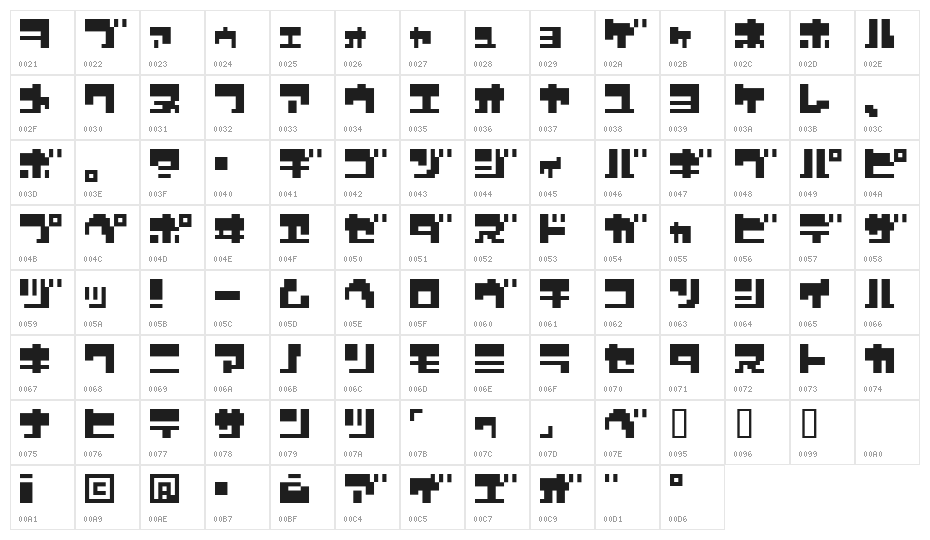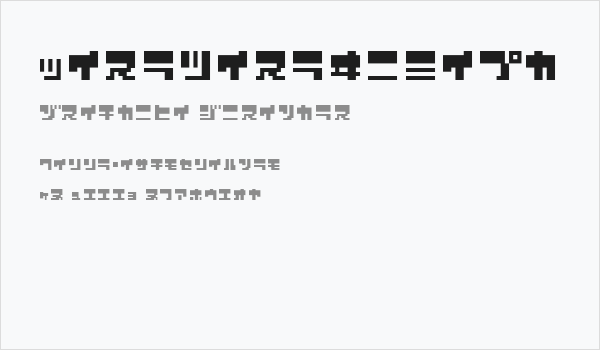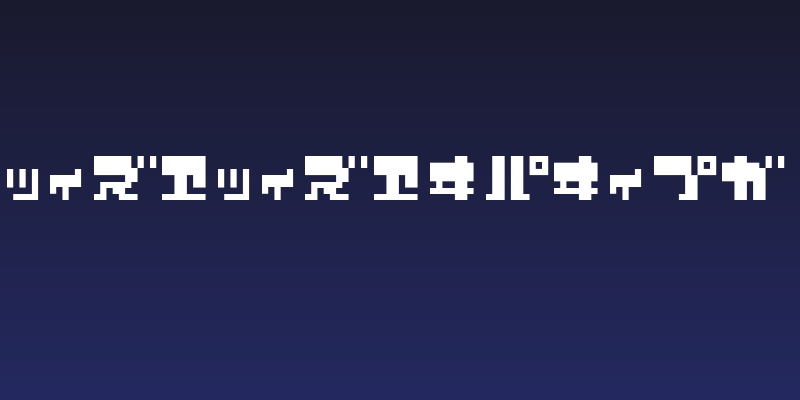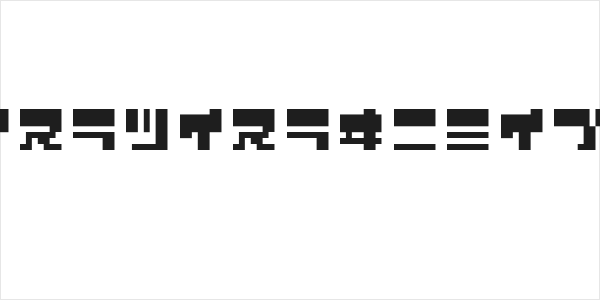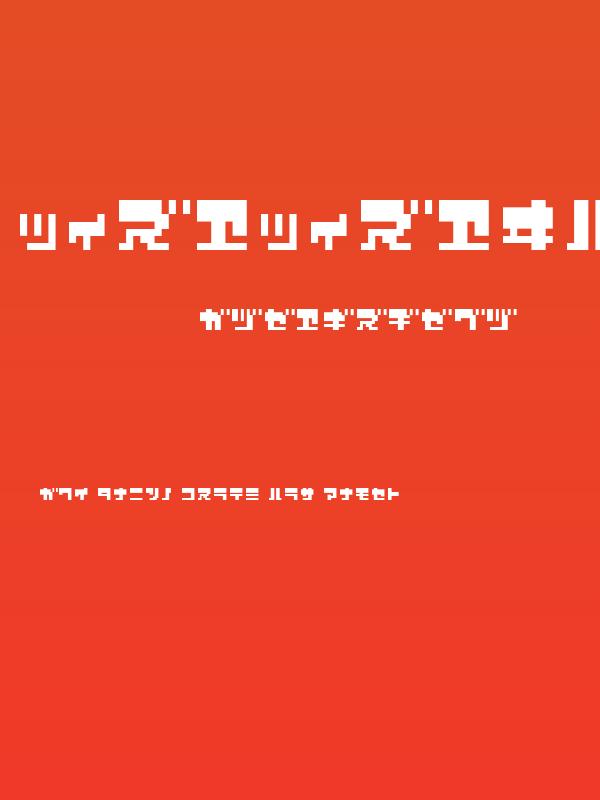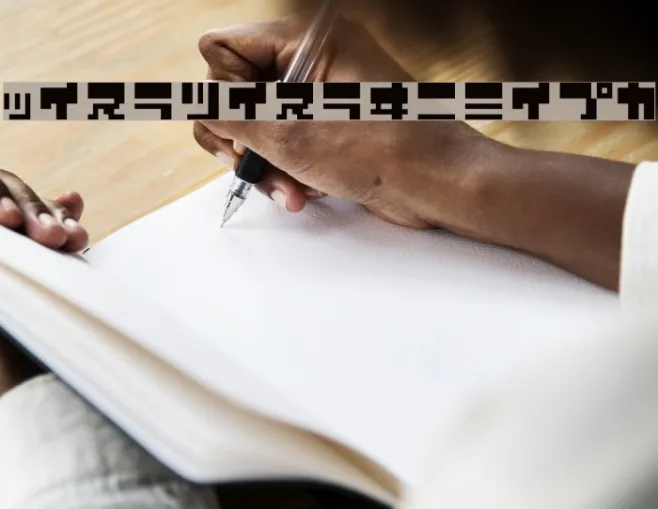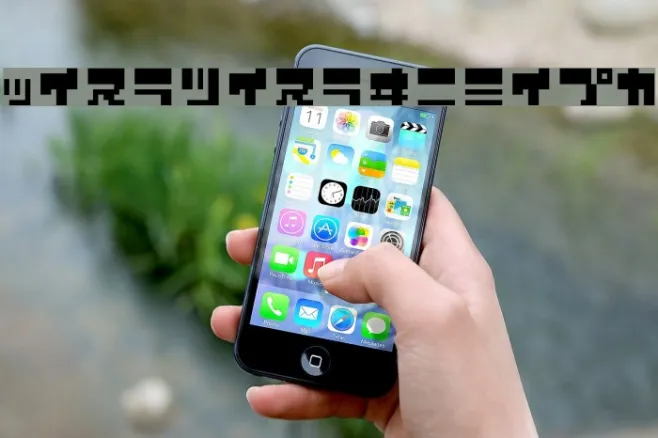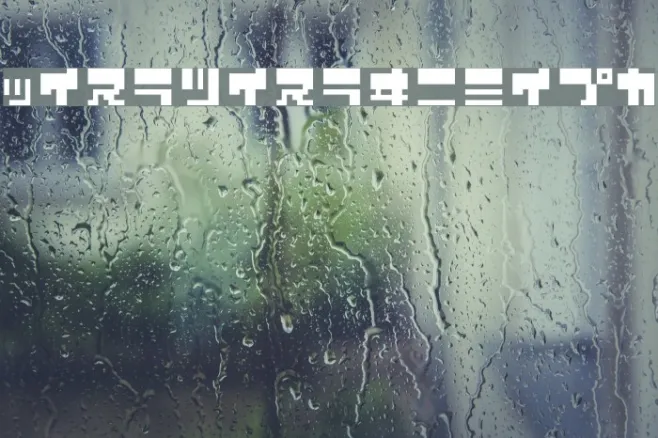
ZerozeroNineKt Font
ZerozeroNineKt Description
This font presents a bold and blocky style, characterized by its pixelated, geometric shapes. The characters are uniform in height and width, creating a cohesive and structured appearance. Each letter and symbol is distinctly separated, enhancing readability despite the dense design. The font's aesthetic is reminiscent of retro digital displays or early video game graphics, offering a nostalgic yet modern appeal. Its strong lines and lack of curves give it a robust and impactful presence, making it suitable for attention-grabbing headlines or titles. The consistent stroke weight across all characters contributes to a balanced and harmonious look, while the absence of serifs emphasizes its contemporary and straightforward nature.
| Overall Style | Retro, Modern |
| Proposed Projects | Ideal for video game titles, tech-themed posters, digital art projects, and retro-style branding. |